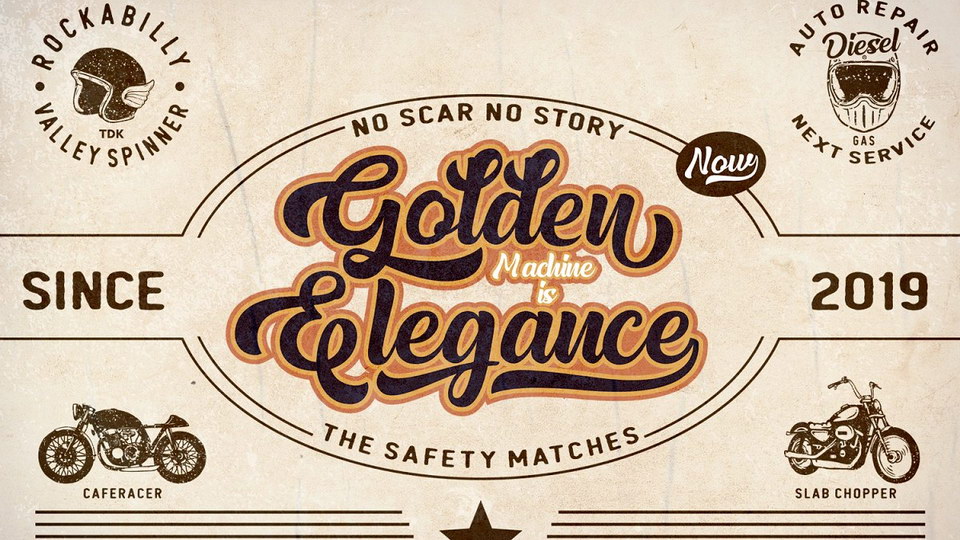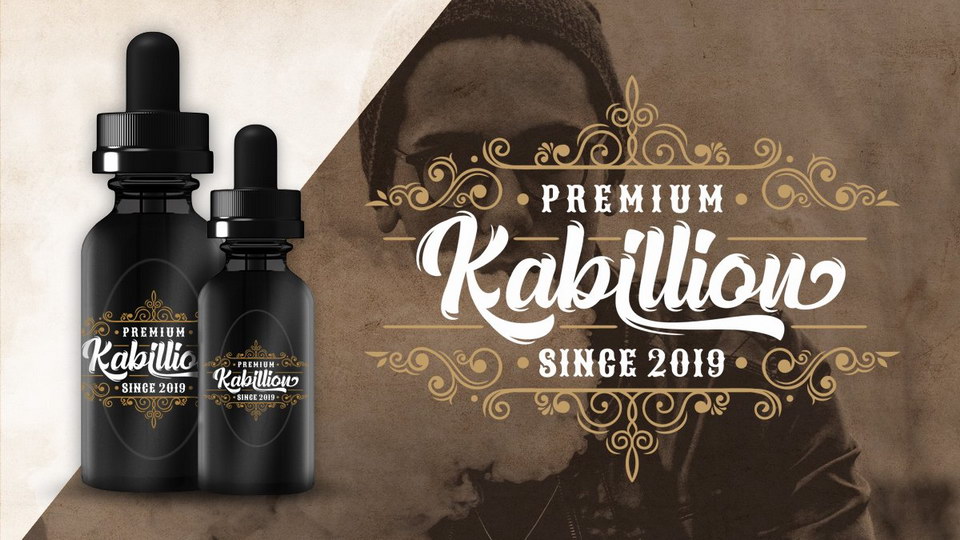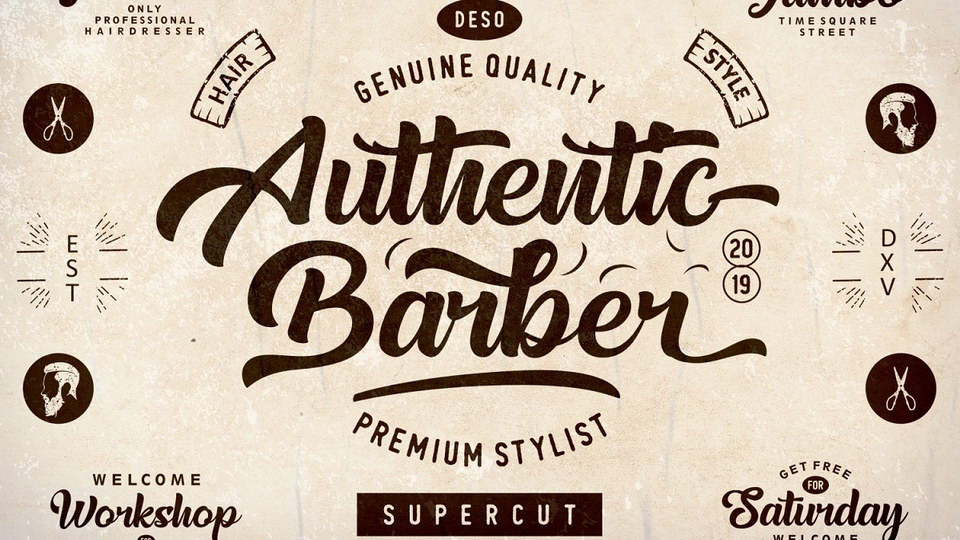
Realistica is a fancy hand lettered script font made with a touch of retro combined with a modern design. This font will work on any media, perfectly match your vintage design, t-shirt, logo, labels, badges, posters and etc.